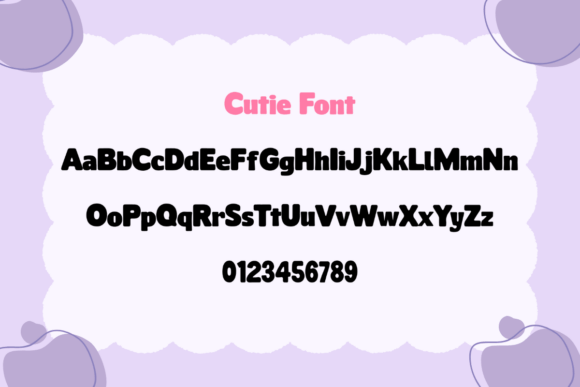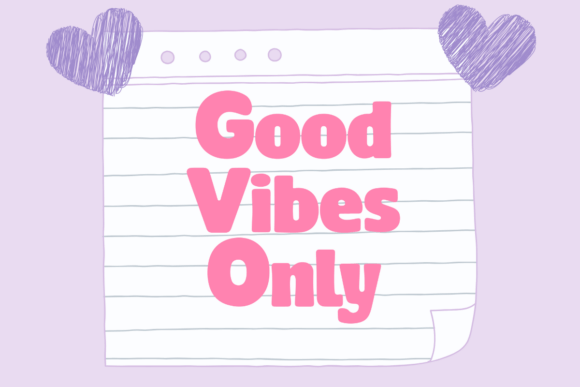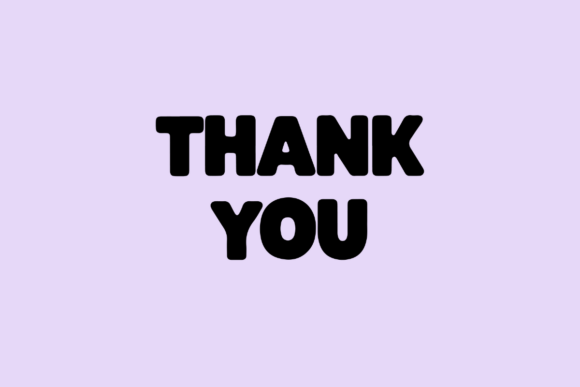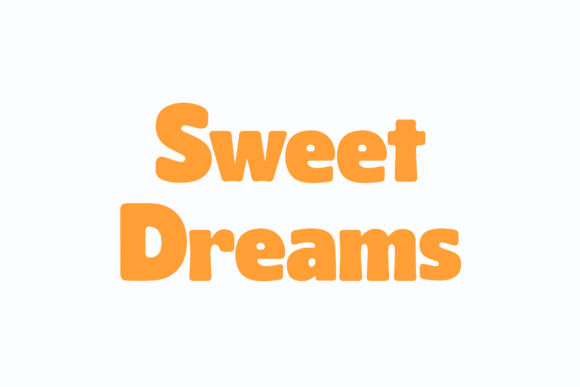
The Secret to Making Your Design Shine: Introducing Cutie Font
Remember that moment when you’re brainstorming ideas for a children’s book, and you want to convey the perfect mix of playfulness and sweetness? That’s when the magic of typography kicks in, and you start searching for the perfect font to bring your vision to life.
Enter Cutie Font, an irresistibly charming bubble typeface designed to inject a healthy dose of cuteness into all your creative projects. Its rounded, friendly characters are not only adorable but also easy to read and highly versatile, making it perfect for anything from nursery decor to sweet branding.
For designers, Cutie Font is a valuable asset that can elevate any project with its whimsical touch. Whether you’re working on a children’s book, a t-shirt design, or a party invitation, this font is sure to bring a smile to your face and make your design shine.
Cutie Font Key Features
- Font Style: Cutie Font is a cute, playful, and childlike sans-serif font.
- Unique Characteristics: Features rounded edges, smooth curves, and a consistent stroke width, making it suitable for designs requiring a friendly and approachable feel.
Cutie Font Review
Overall, I found “Cutie Font” to be a charming and whimsical font. It’s perfect for projects that require a playful touch. ✨ Here are some of its strengths:
- Unique and creative design
- Perfect for children’s books, cartoons, and other whimsical projects
- Includes a variety of weights and styles to suit different needs
- Highly legible, even at smaller font sizes
- May not be suitable for formal or professional projects
- Some characters may not be as detailed as others, which can be a bit jarring
⚠️ Despite these limitations, I think “Cutie Font” is a great choice for the right project. It’s a fun and playful font that can add a lot of character to your design. With a little care and attention, it can be a great addition to your font collection.
Tips for Getting the Most Out of Cutie Font
To get the most out of Cutie Font, try the following tips:
- Use it for titles and headings to add a touch of whimsy.
- Pair it with bold fonts for a fun and playful look.
- Experiment with different font sizes and colors to create visual interest.
Cutie Font is perfect for:
- Children’s party invitations and decorations.
- Food and dessert labels.
- Gift tags and wrapping paper.